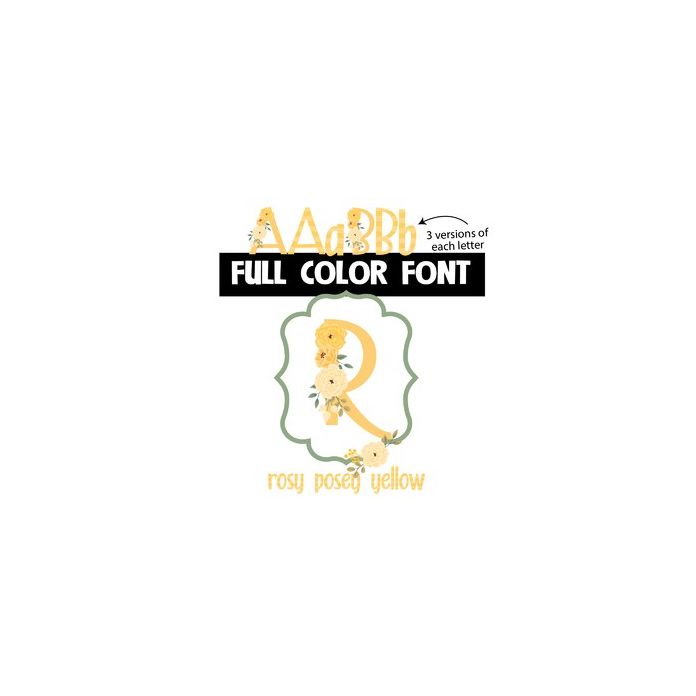
rosy posey yellow color font
This full-color font features beautiful flowers on the uppercase. Use the ` symbol to type the frame shape. Use the lowercase for a striped uppercase without flowers and access a lower "alt" case through your system's character map or Silhouette's glyph map. This font works best for titles, displays, posters and more. Please note color fonts will show as black in non compatible programs. This font type is compatible with Silhouette Studio